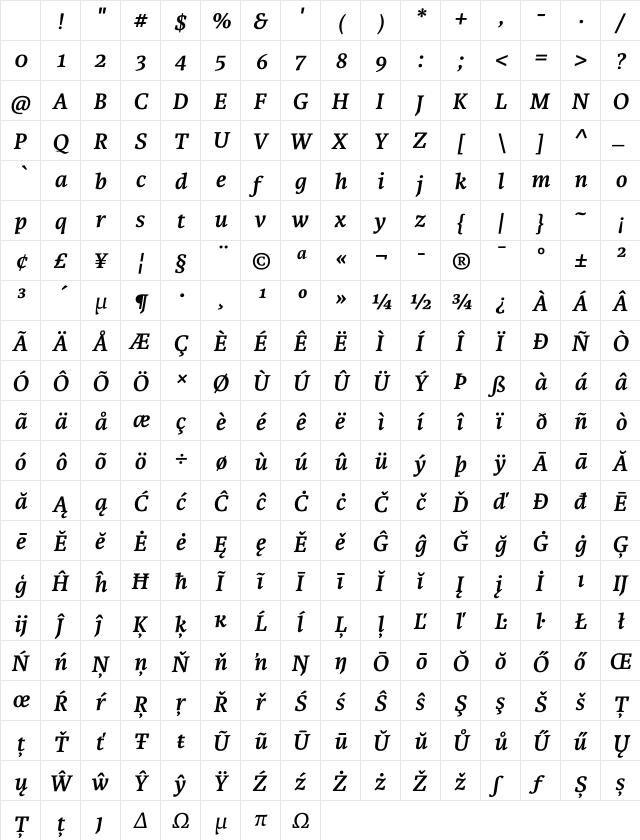
Karmina is a composed and adaptable typeface that performs quietly and consistently across a wide range of design contexts. The slanted form adds forward momentum and visual energy. Its bold stroke weight gives it real presence on the page.
Pro Tip: Use Karmina for emphasis, pull quotes, and subheadings where its slanted energy can add rhythm to the layout.